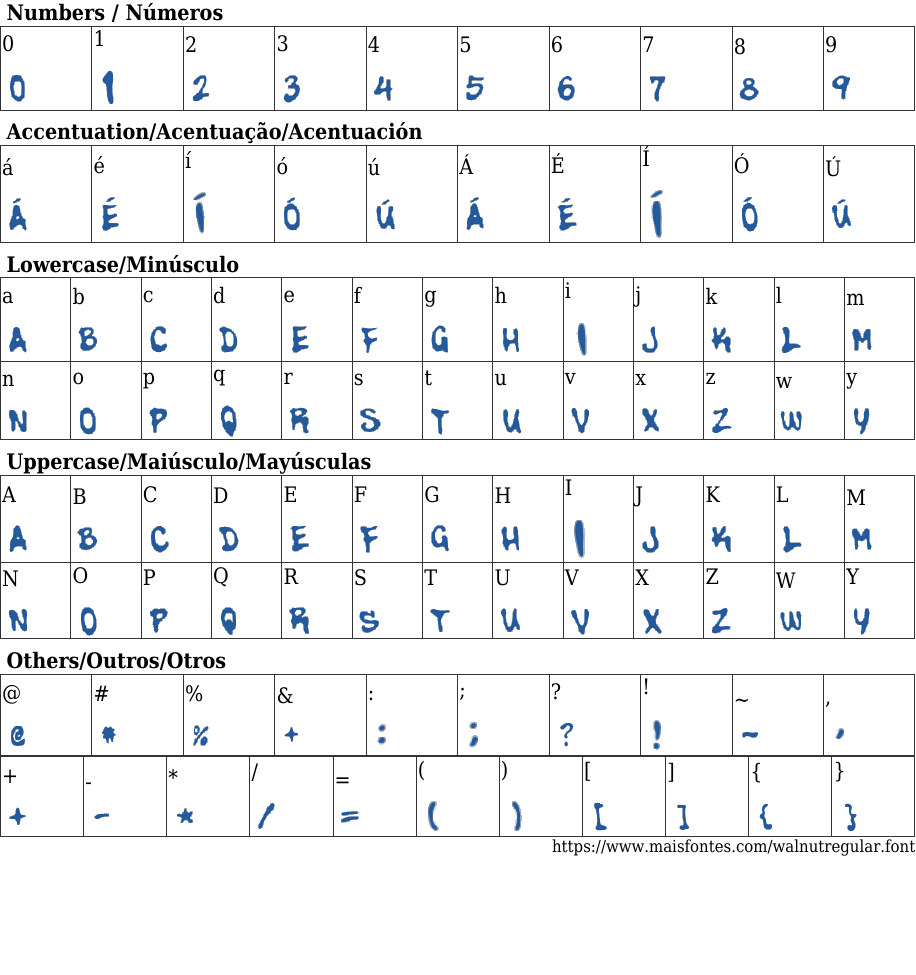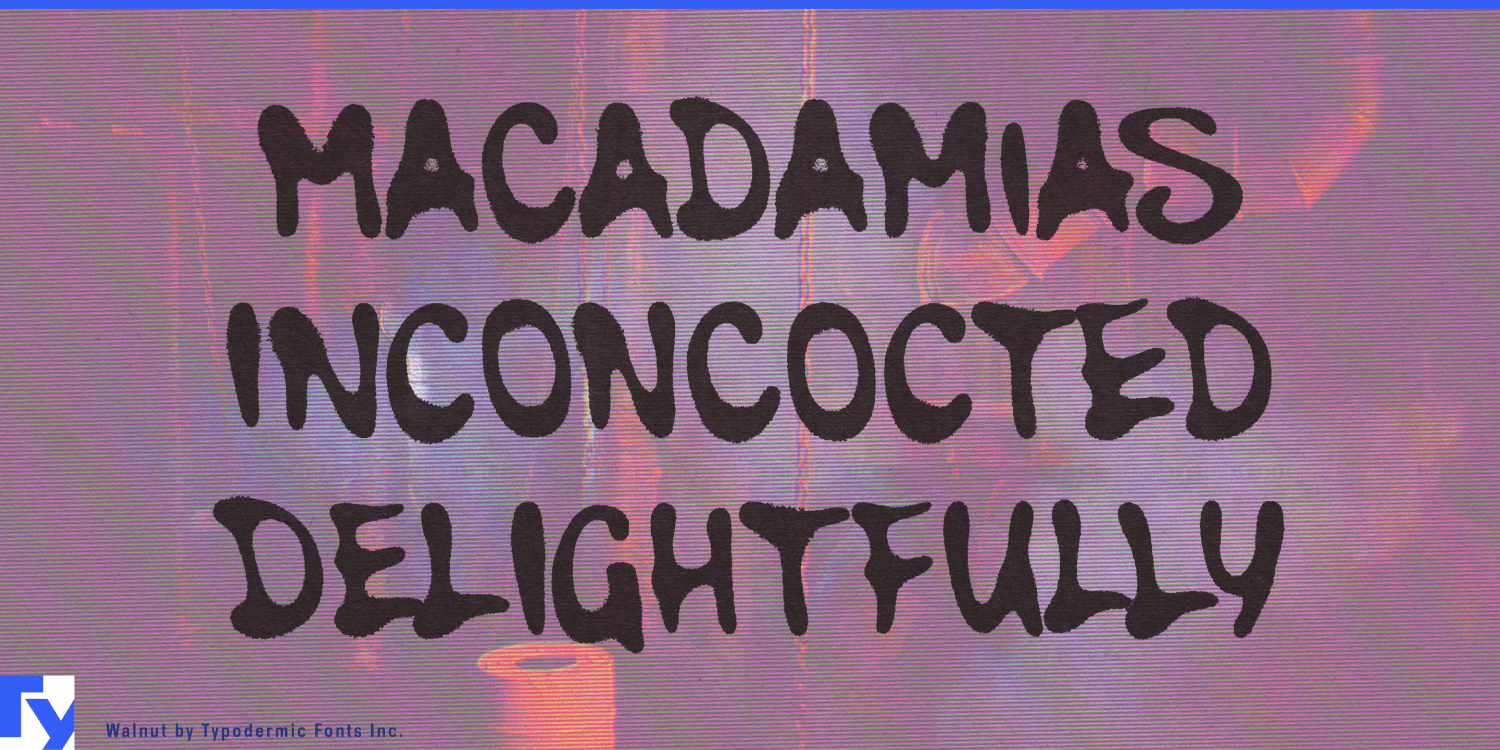
Walnut Regular Font . This font was not designed for the faint of heart. The walnut regular font was designed by ray larabie. It’s tough, rugged and unapologetic. walnut regular is a fun and free font that can be used for personal projects. This font was not designed for the faint of heart. Votes, rated based on results identification. It was designed by ray larabie and is available. introducing walnut—the graffiti typeface that packs a punch! walnut regular is the perfect font for all your fun designs. Download walnut regular, provided on. It’s tough, rugged and unapologetic. Walnut regular by typodermic fonts inc. Votes, rated based on results identification.
It’s tough, rugged and unapologetic. walnut regular is the perfect font for all your fun designs. It was designed by ray larabie and is available. This font was not designed for the faint of heart. Download walnut regular, provided on. This font was not designed for the faint of heart. Votes, rated based on results identification. walnut regular is a fun and free font that can be used for personal projects. The walnut regular font was designed by ray larabie.
Walnut Regular Font introducing walnut—the graffiti typeface that packs a punch! It was designed by ray larabie and is available. It’s tough, rugged and unapologetic. introducing walnut—the graffiti typeface that packs a punch! Download walnut regular, provided on. walnut regular is a fun and free font that can be used for personal projects. Votes, rated based on results identification. introducing walnut—the graffiti typeface that packs a punch! This font was not designed for the faint of heart. The walnut regular font was designed by ray larabie. Walnut regular by typodermic fonts inc. Votes, rated based on results identification. This font was not designed for the faint of heart. walnut regular is the perfect font for all your fun designs. It’s tough, rugged and unapologetic.